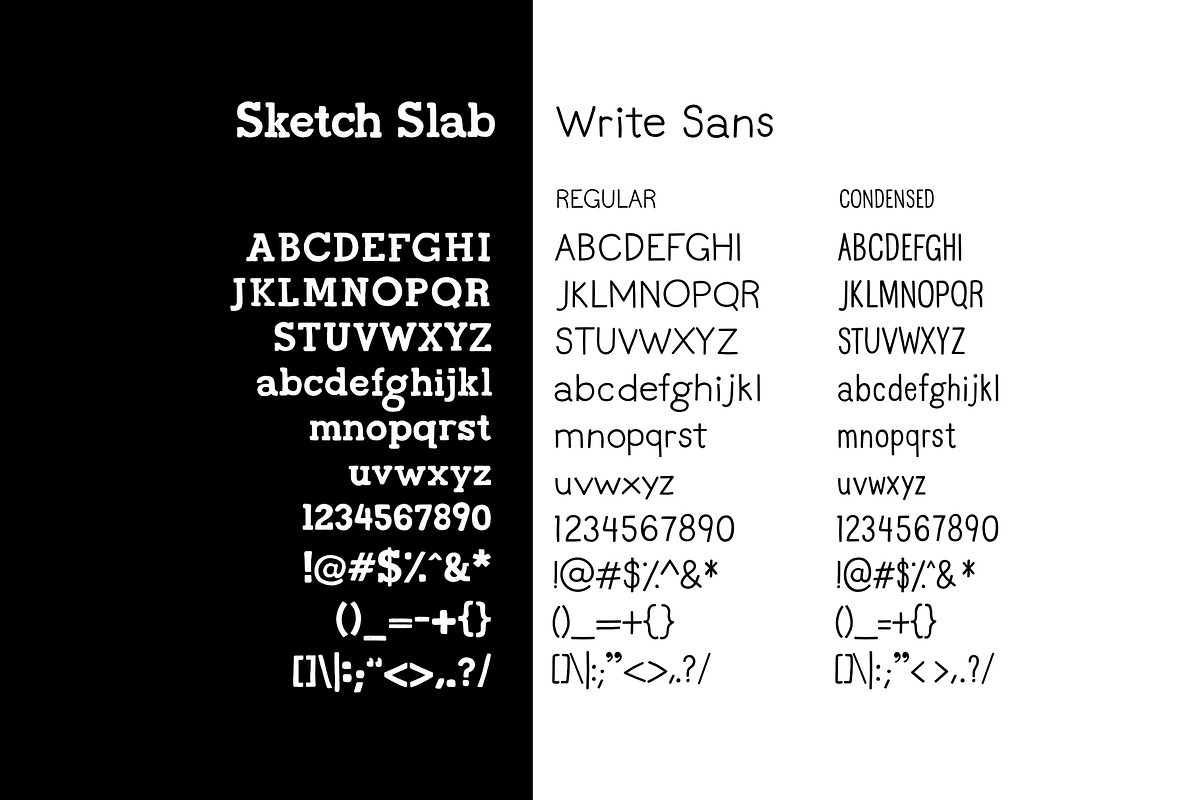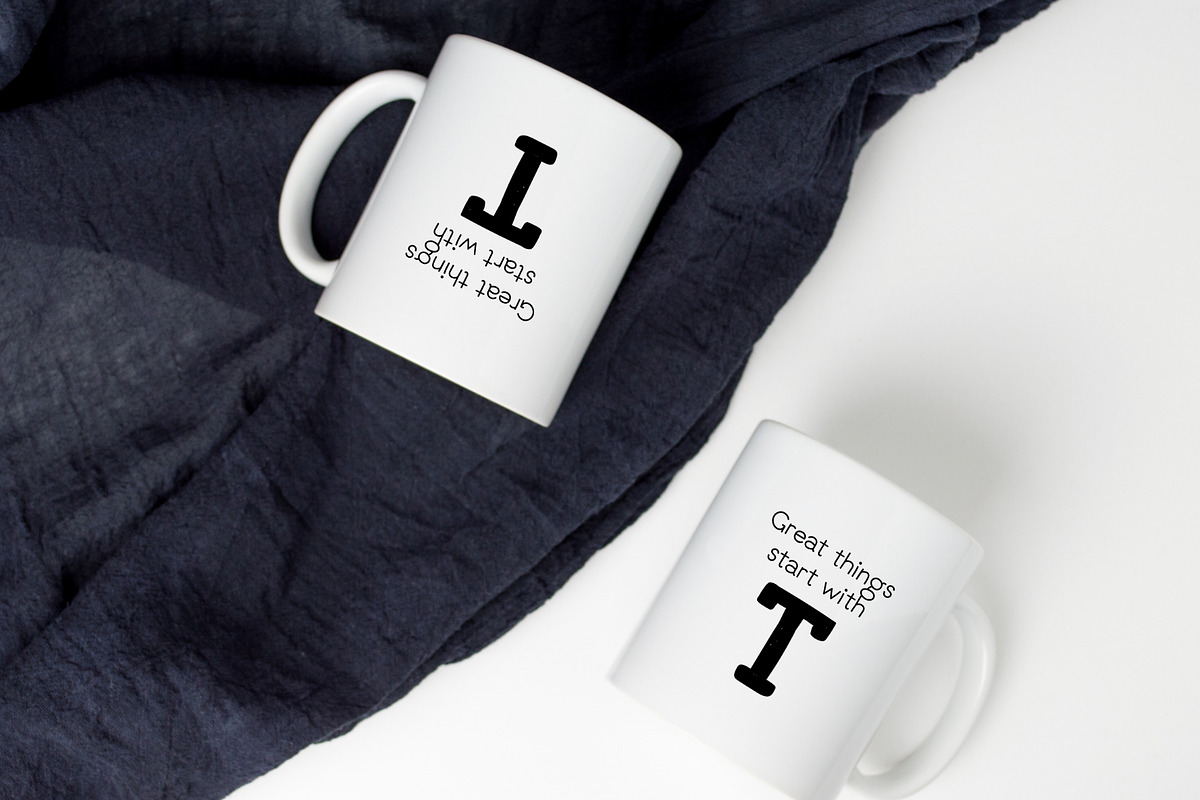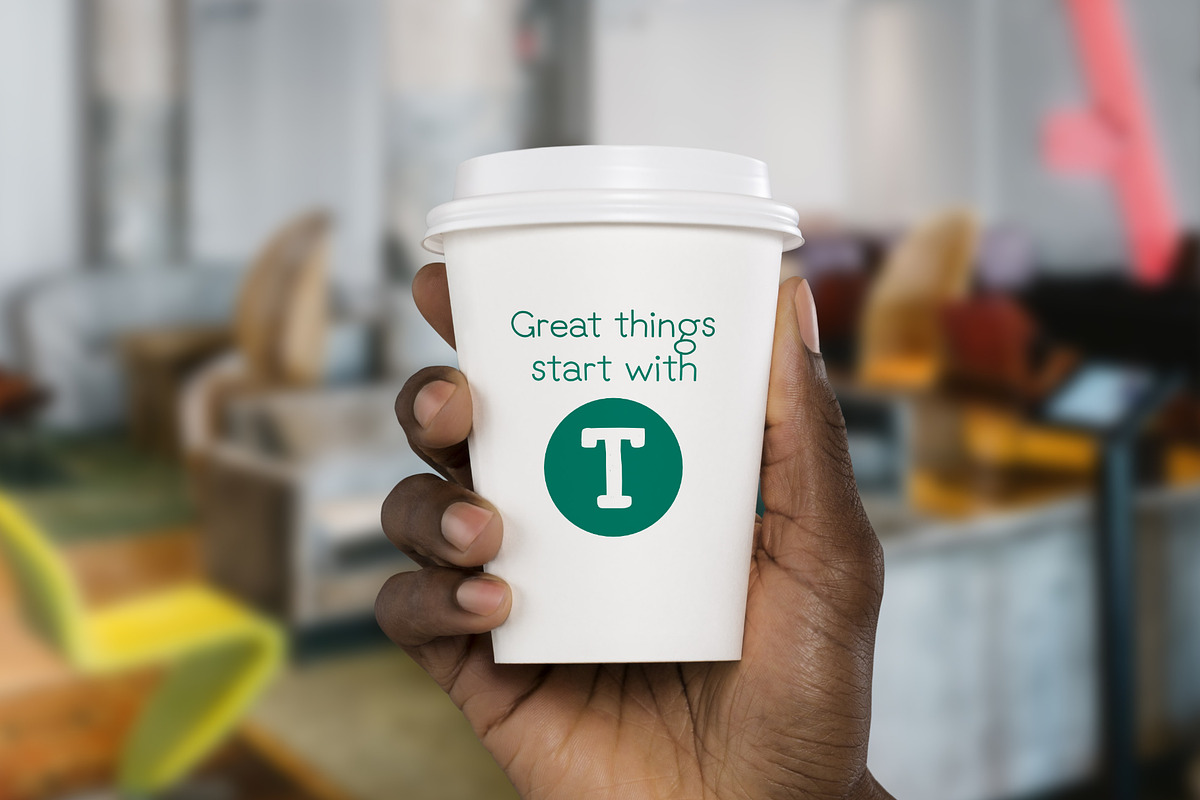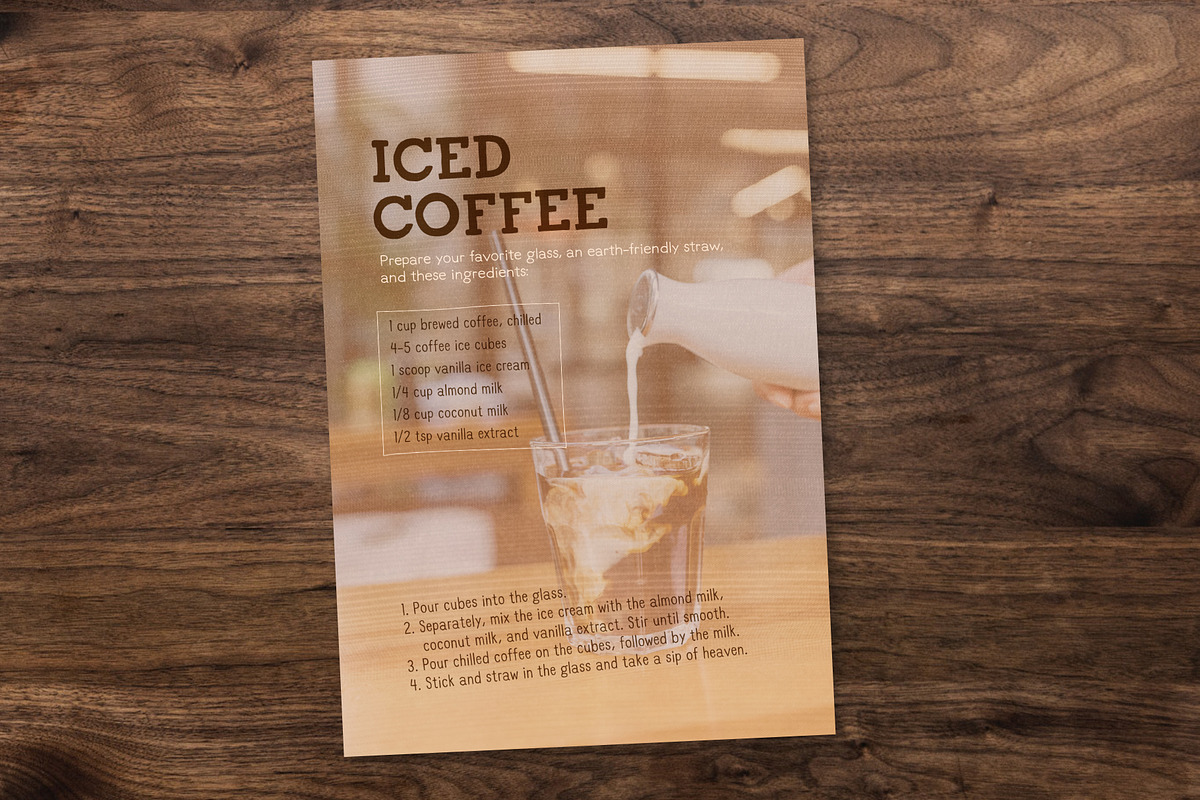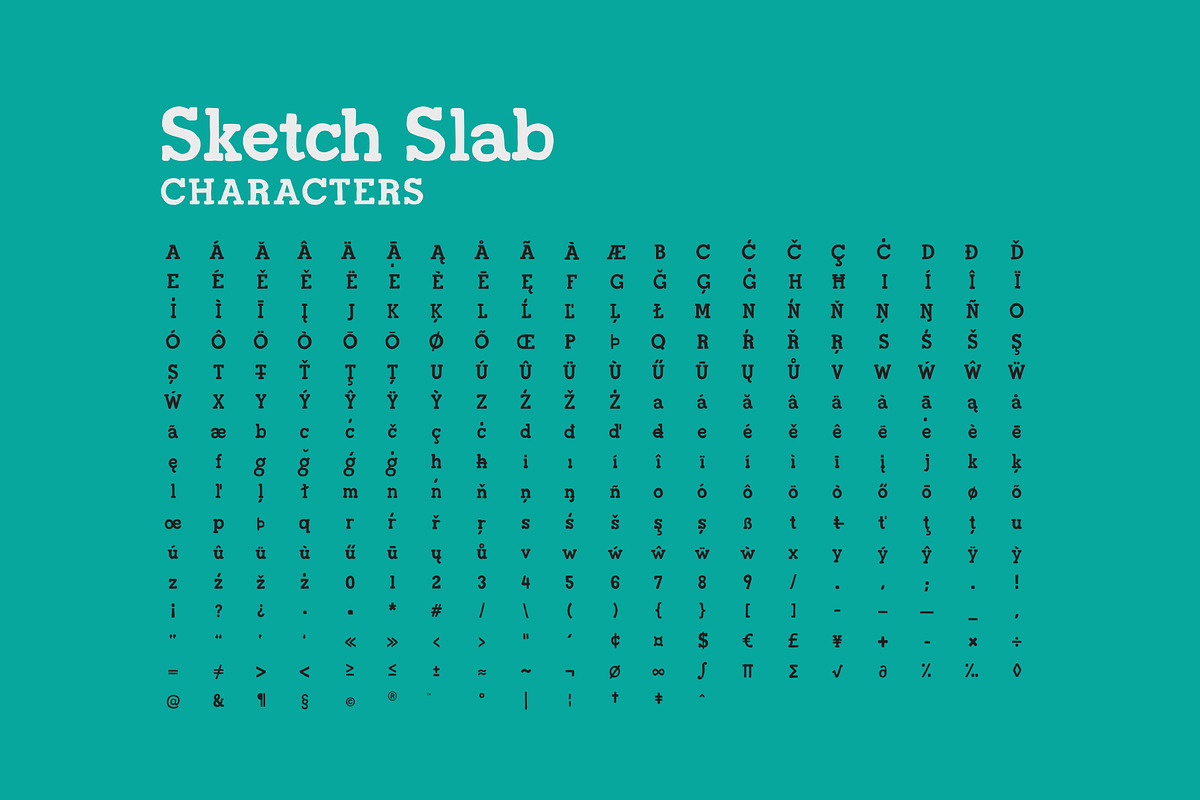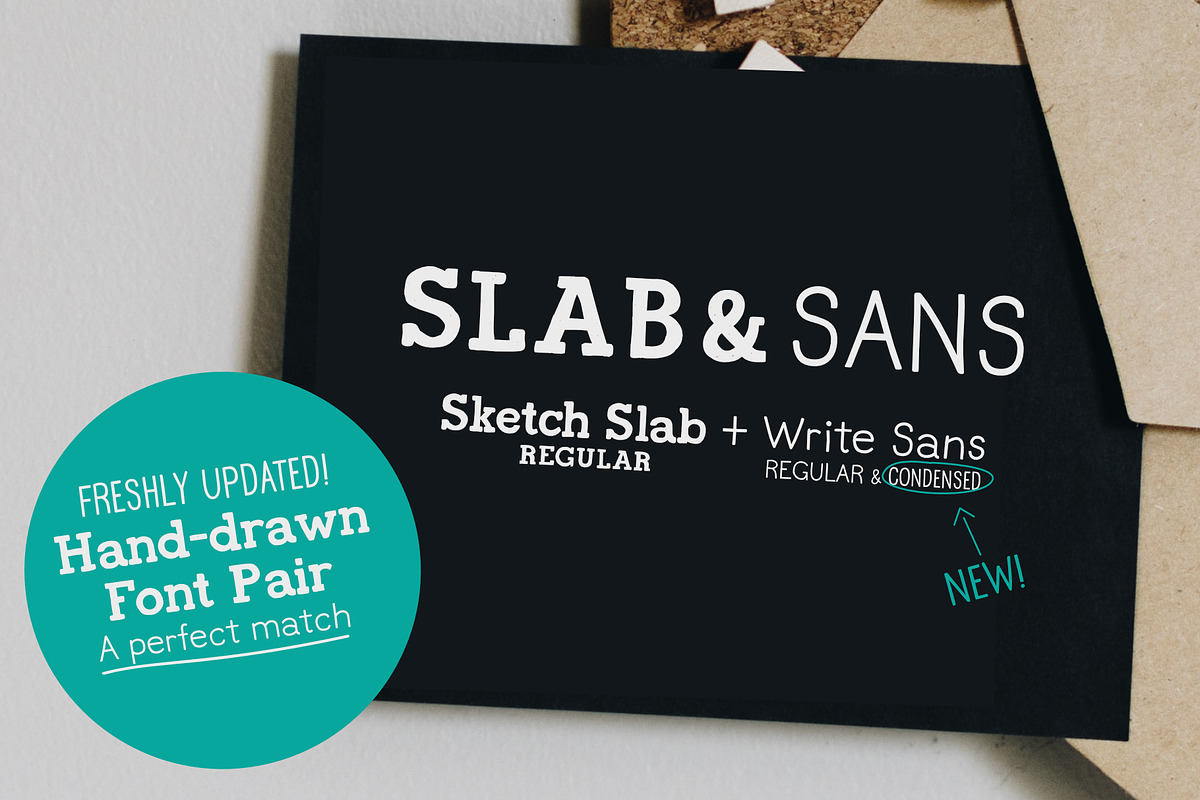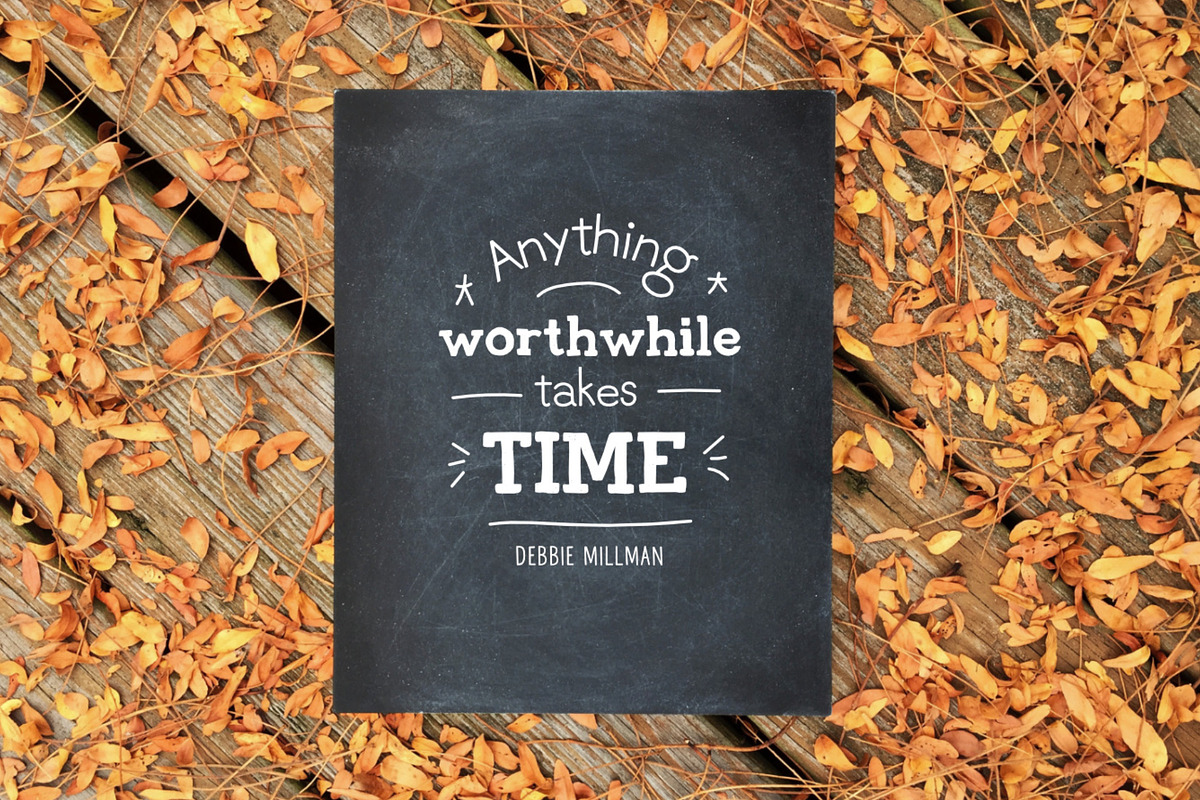
Slab and Sans Font Pair
Slab and Sans combines two typefaces with a hand-drawn feel, to complement each other. Sketch Slab has a strong, bold flavor, and is paired with Write Sans, light, playful, easy-to-read handwriting, in regular and condensed styles.
Using these three styles together can create interesting visual variety for your typography, while giving a unique, personal feel to your design piece.
Typically, you would use Sketch Slab as the headline, being the heavy type, with Write Sans for the supporting text. But feel free to experiment and you may find something unexpected that works!